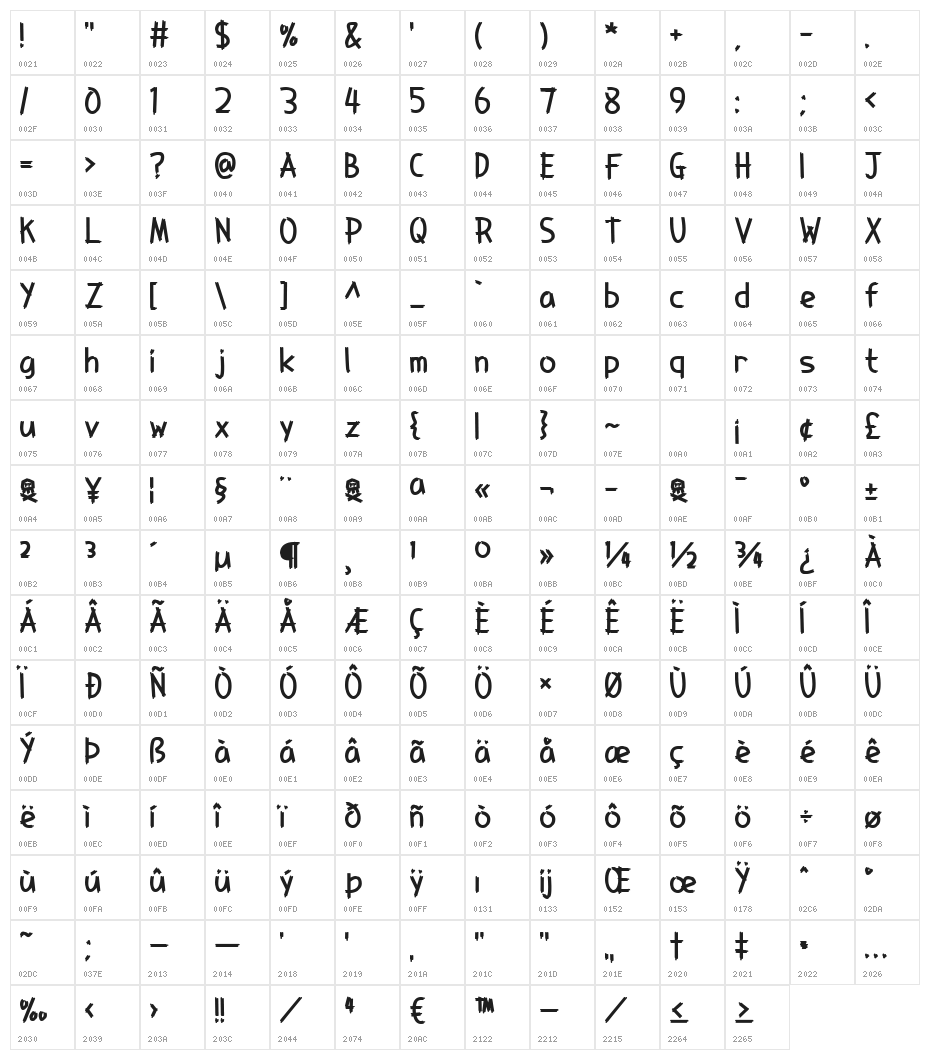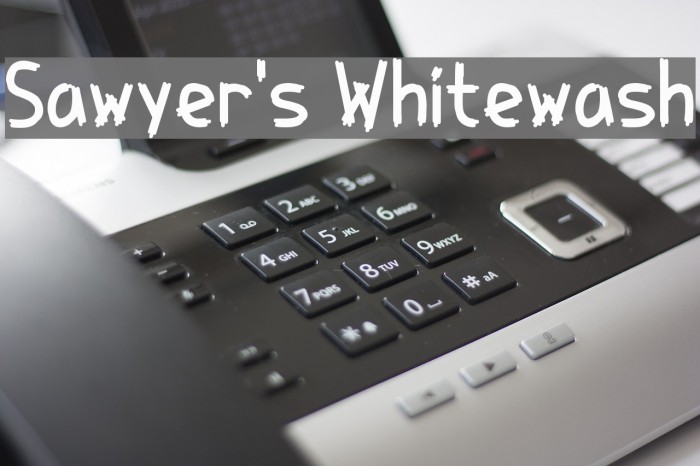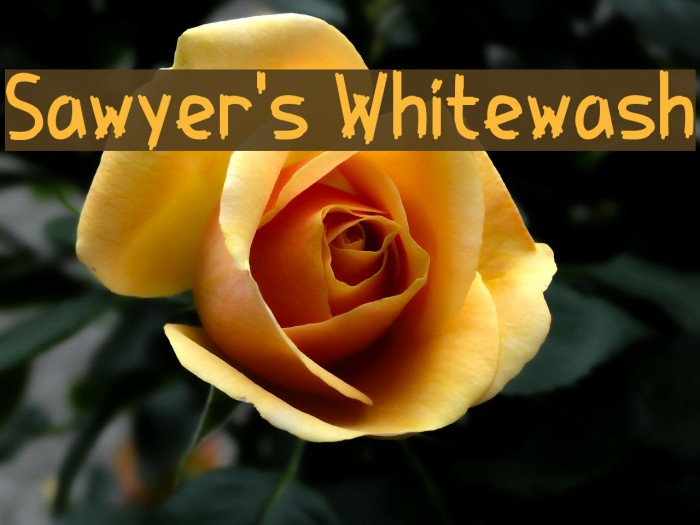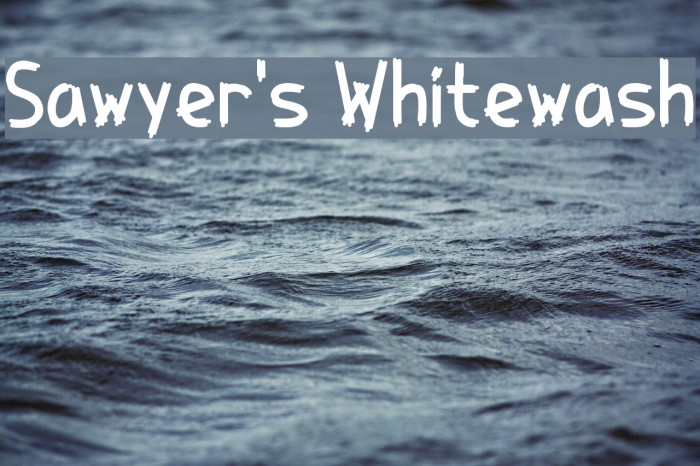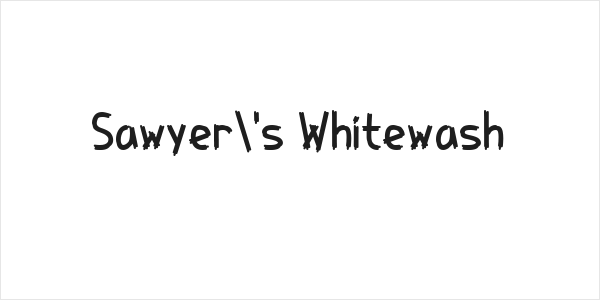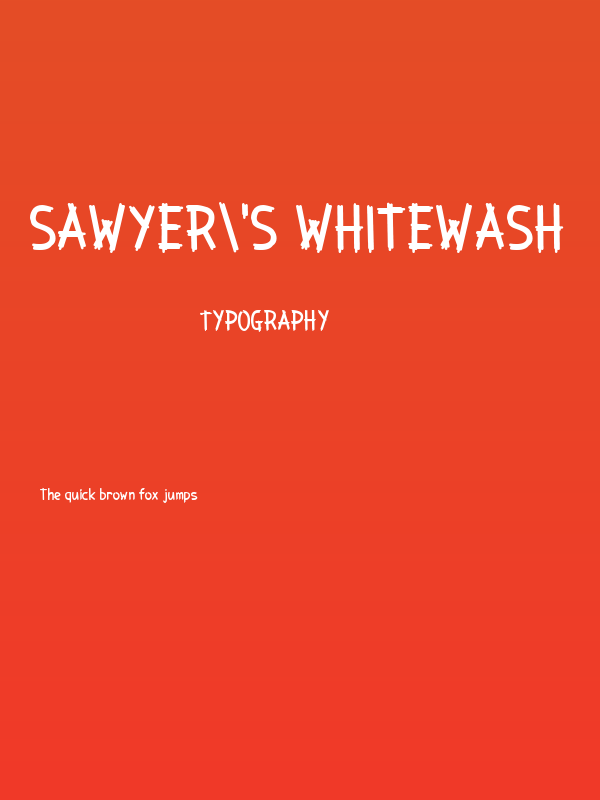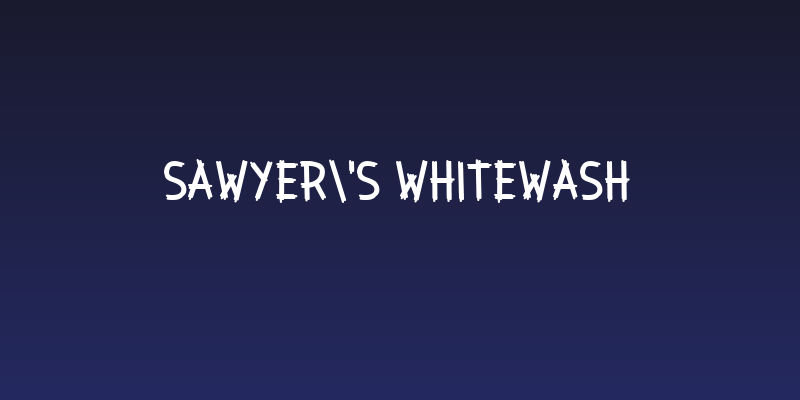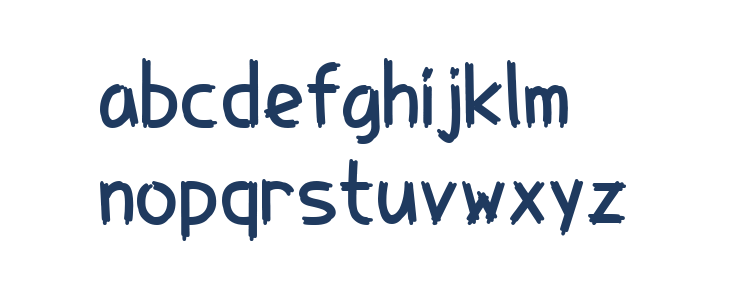
Sawyer's Whitewash Font
Sawyer's Whitewash Description
This font features a playful and informal handwritten style, characterized by uneven strokes and a slightly rough texture that mimics the look of chalk or paint. The letters are bold and have a casual, friendly appearance, making them ideal for projects that require a personal touch. The uppercase and lowercase letters maintain a consistent style, with rounded edges and a slightly irregular baseline, adding to the font's charm. The numerals and special characters are equally expressive, ensuring a cohesive look across all text elements.
| Proposed Projects | Ideal for children's book covers, playful posters, casual invitations, and educational materials. |